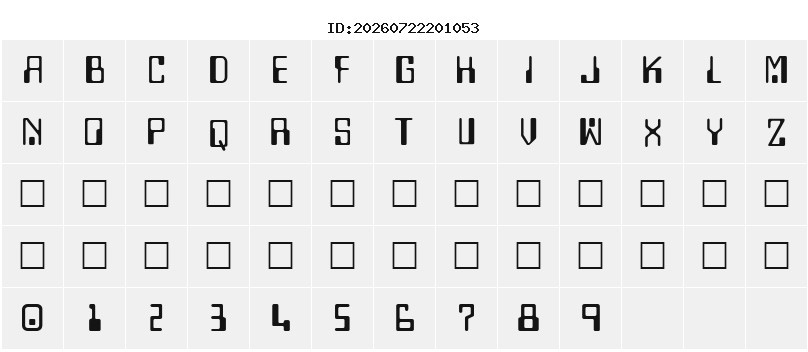
• Font Name: Mycalc
About Mycalc.ttf
Mycalc.ttf is a modern, elegant sans-serif font designed for ultimate readability and visual harmony. Perfect for branding, headlines, web design, and print materials.